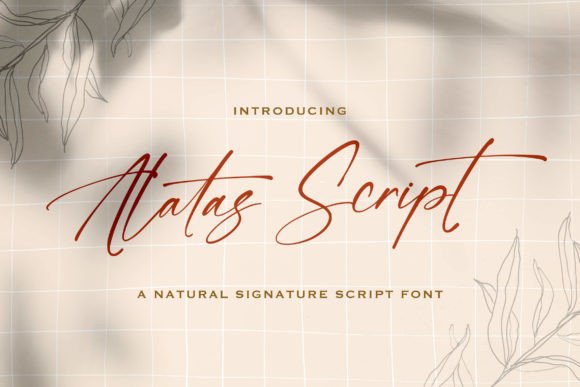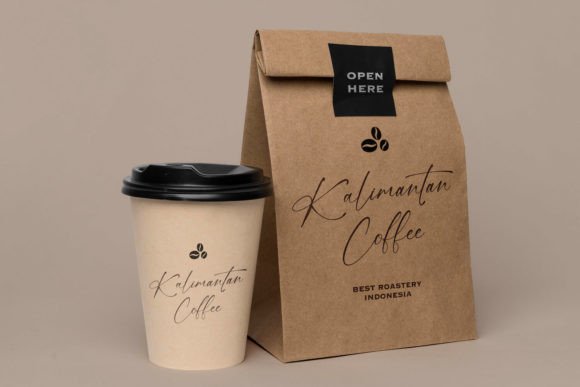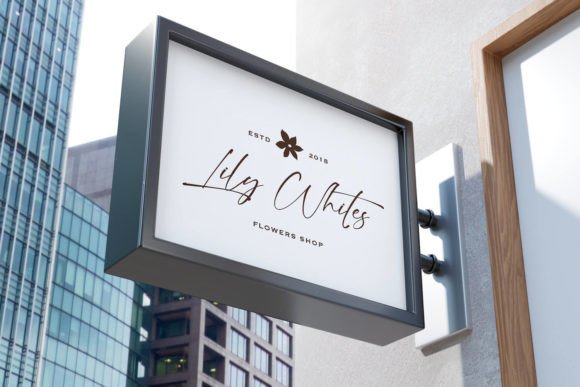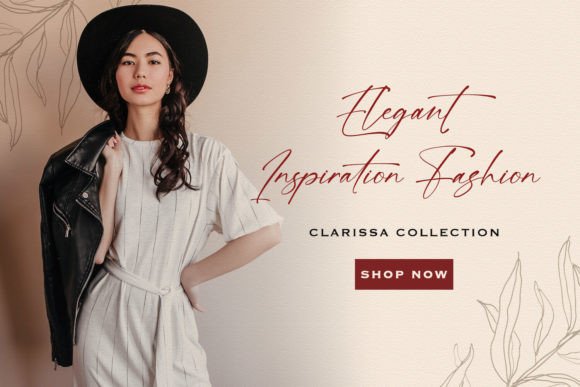
Alatas Script Font Download – Elegant Flowing Handwritten Typeface
The Alatas Script Font download is a delicate handwritten typeface with elegance and charm. With its flowing strokes and balanced shapes, this font makes every design look refined and stylish. Because it is so versatile, it works well in both personal and professional projects. Whether for cards, posters, or branding, Alatas Script will make your ideas stand out.
Flowing Style of Alatas Script Font Download
The Alatas Script Font download features soft curves and a smooth rhythm. As a result, it feels close to real handwriting while staying modern. In addition, its clean lines keep text easy to read in many situations.
Alatas Script Font Download for Invitations and Cards
Wedding invitations, thank-you notes, and greeting cards shine with the Alatas Script Font download. Not only does it add elegance, but it also brings a personal and romantic tone. Therefore, it is a great choice for heartfelt designs.
Alatas ScriptFont Download for Logos and Branding
The Alatas ScriptFont download also works perfectly for logos, product packaging, and brand identity. Moreover, its graceful handwritten look gives your brand a professional yet creative appeal.
Alatas ScriptFont Download in Posters and Digital Designs
The Alatas ScriptFont download adapts beautifully to posters, banners, and digital layouts. In addition, its stylish handwritten flow looks just as good on screens as it does in print.
Why Choose Alatas ScriptFont Download for Your Projects?
The Alatas ScriptFont download is elegant, flexible, and simple to use. In other words, it is a great font for personal projects and professional branding alike. Finally, it adds charm and creativity to every design.